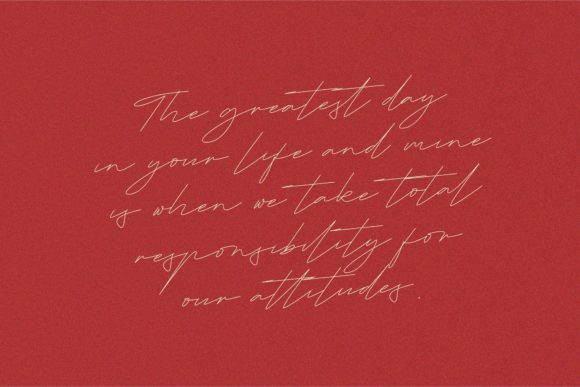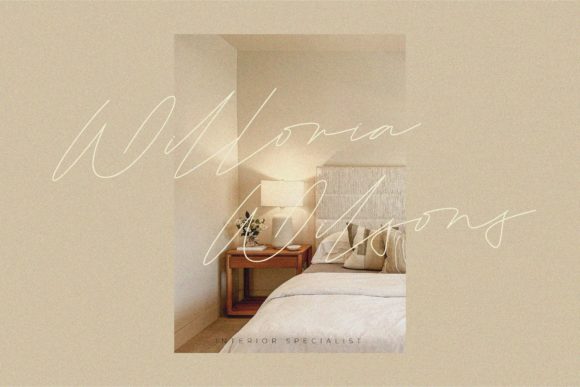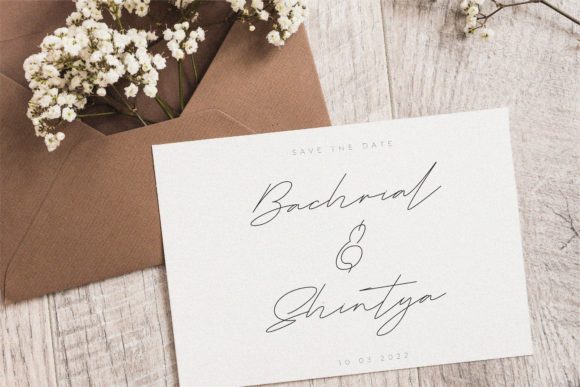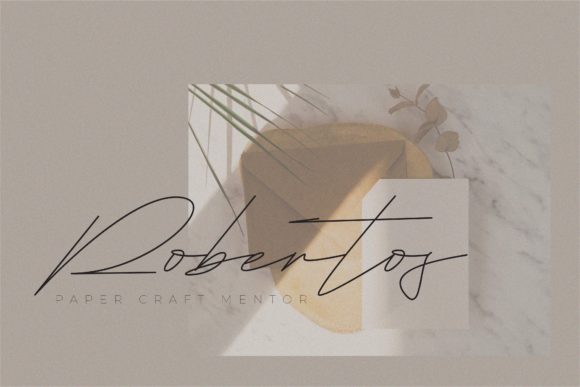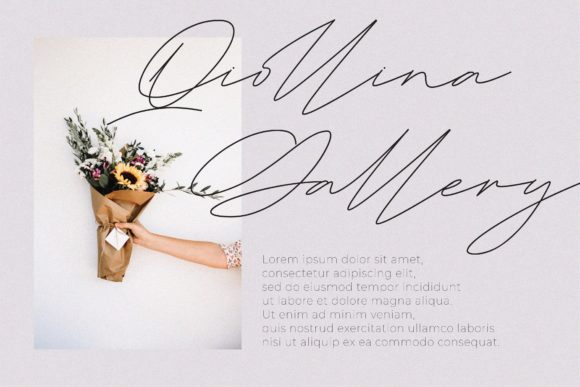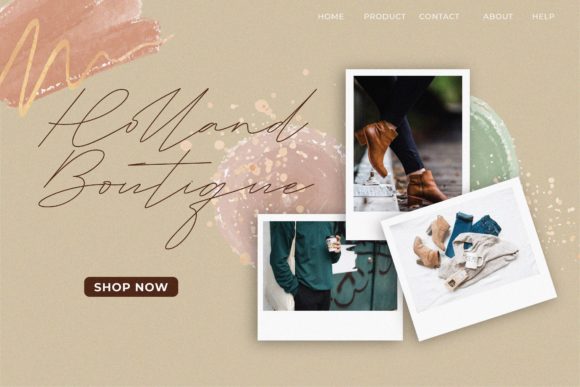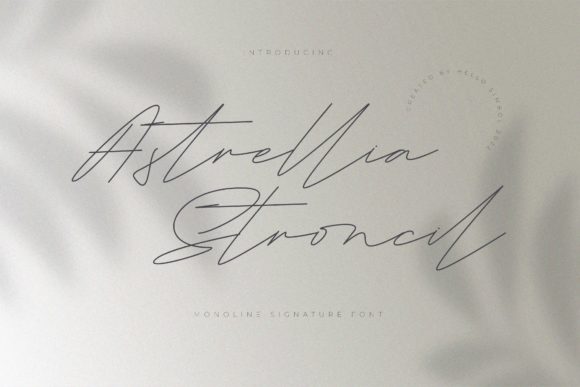
Astrellia Stroncil Font: Elevate Your Designs with Elegance and Sophistication
In the world of typography, few fonts manage to capture the essence of elegance and sophistication as effectively as Astrellia Stroncil. This incredibly thin lettered and beautiful script font has been making waves in the design community, and for good reason. With its balanced character and versatile design, Astrellia Stroncil is poised to become a staple in the arsenals of designers and crafters alike.
The Beauty of Astrellia Stroncil
Astrellia Stroncil’s claim to fame lies in its striking appearance. The font boasts an ultra-thin lettering style that exudes refinement and luxury. Its slender lines and curves create a sense of fluidity, making it perfect for designs that require a touch of sophistication. Whether you’re working on a branding project, a wedding invitation, or a fashion editorial, Astrellia Stroncil’s elegant aesthetic is sure to impress.
Balanced Character and Design
One of the standout features of Astrellia Stroncil is its beautifully balanced character. The font’s designer has carefully crafted each letter to ensure that it not only looks stunning on its own but also flows seamlessly with other characters. This attention to detail results in a harmonious and visually appealing text that enhances the overall design.
Astrellia Stroncil’s balanced design also makes it incredibly versatile. It can be used in a wide range of applications, from large-scale signage and posters to smaller-scale projects like business cards and social media graphics. The font’s adaptability ensures that it will fit right in with your existing design pool, making it an excellent addition to your typography collection.
What Makes Astrellia Stroncil Special?
So, what sets Astrellia Stroncil apart from other script fonts on the market? Here are a few key factors that contribute to its unique charm:
- Ultra-thin lettering: Astrellia Stroncil’s remarkably thin lines create a sense of delicacy and refinement that’s hard to find in other fonts.
- Beautifully balanced character: The font’s carefully crafted letters ensure a harmonious flow of text that’s a joy to read.
- Versatile design: Astrellia Stroncil’s adaptability makes it suitable for a wide range of applications and design styles.
- Elegant aesthetic: The font’s sophisticated appearance is perfect for designs that require a touch of luxury and refinement.
How to Use Astrellia Stroncil in Your Designs
Ready to incorporate Astrellia Stroncil into your designs? Here are a few tips to get you started:
- Pair it with bold fonts: Astrellia Stroncil’s delicate appearance makes it an excellent choice for pairing with bold, contrasting fonts.
- Use it for headlines and titles: The font’s elegant aesthetic makes it perfect for grabbing attention and adding a touch of sophistication to headlines and titles.
- Experiment with colors and textures: Astrellia Stroncil’s versatility allows you to experiment with different colors and textures to create unique and eye-catching designs.
Astrellia Stroncil is a game-changer for designers and crafters looking to elevate their designs with elegance and sophistication. Its ultra-thin lettering, beautifully balanced character, and versatile design make it an excellent addition to any typography collection. Whether you’re working on a large-scale project or a small-scale design, Astrellia Stroncil is sure to make a lasting impression.